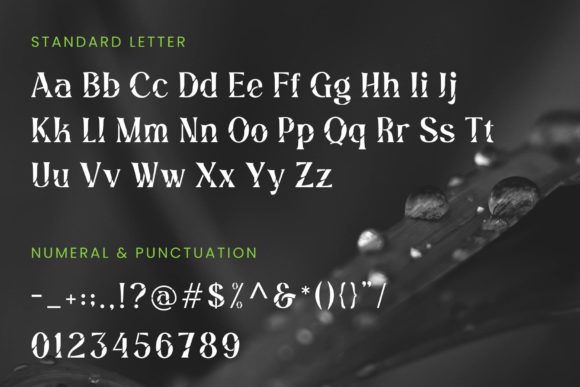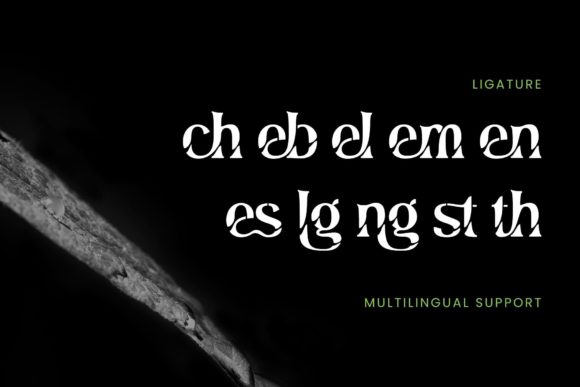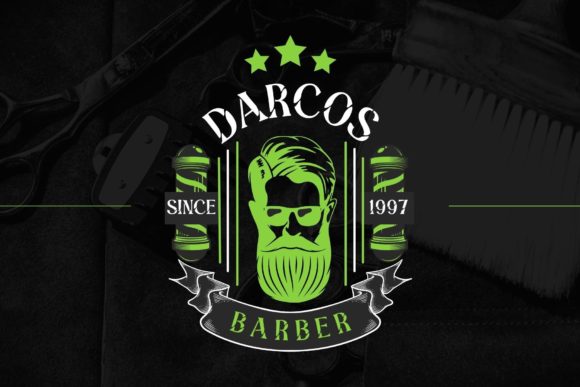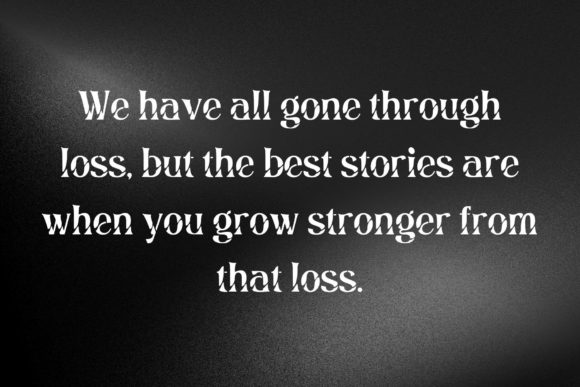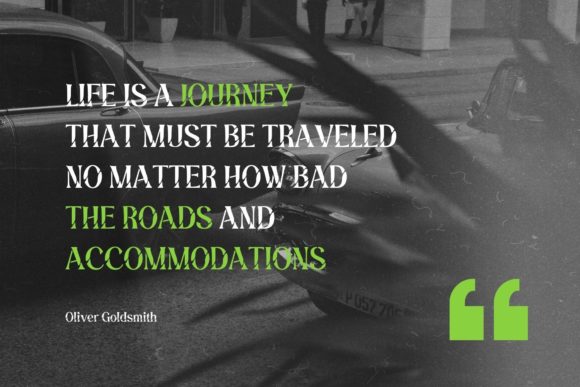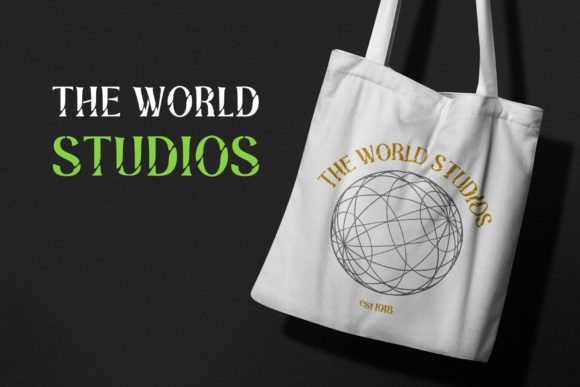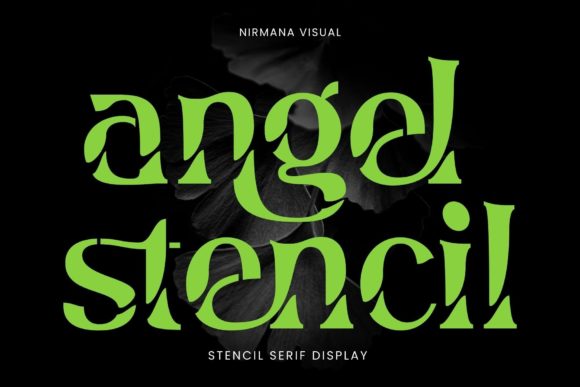
The Angel Stencil Font: Elevate Your Designs with Elegance
Have you ever been in the middle of a design project, and suddenly, you’re stuck on finding the perfect font? I recall a recent experience where a client requested a font that was both elegant and contemporary for their product packaging. After scouring through numerous font libraries, I stumbled upon the Angel Stencil font. It was love at first sight! ✨ In this article, we’ll dive into the world of Angel Stencil, exploring its features, and how to make the most of this beautiful font.
A Personal Review of Angel Stencil
- ✨ Elegant and contemporary design: Angel Stencil boasts a stylish serif font that adds a touch of sophistication to any design project.
- ✅ Versatility: This font is perfect for a wide range of applications, including product packaging, branding projects, magazine covers, social media, and wedding designs.
- 💫 Highly legible: The font’s clear and crisp design ensures that your text remains readable, even at smaller sizes.
While Angel Stencil is an exceptional font, there are a few minor quirks to be aware of:
- ⚠️ Limited availability of OpenType features: Although Angel Stencil supports some OpenType features, it may not offer the extensive range of features found in other fonts.
- 🤔 Occasional kerning issues: As with any font, you may encounter kerning issues, especially when using the font at smaller sizes or in combination with other fonts.
The Backstory of Angel Stencil
Angel Stencil was designed with the intention of creating a font that exudes elegance and sophistication. The designer’s inspiration came from classic serif fonts, with a modern twist to make it more versatile and contemporary. The result is a font that’s both refined and stylish, perfect for a wide range of design projects.
Q: Is Angel Stencil suitable for body text?
A: While Angel Stencil is a beautiful font, it’s recommended to use it for headlines, titles, and short paragraphs. For body text, you may want to consider a more traditional serif font for better readability.